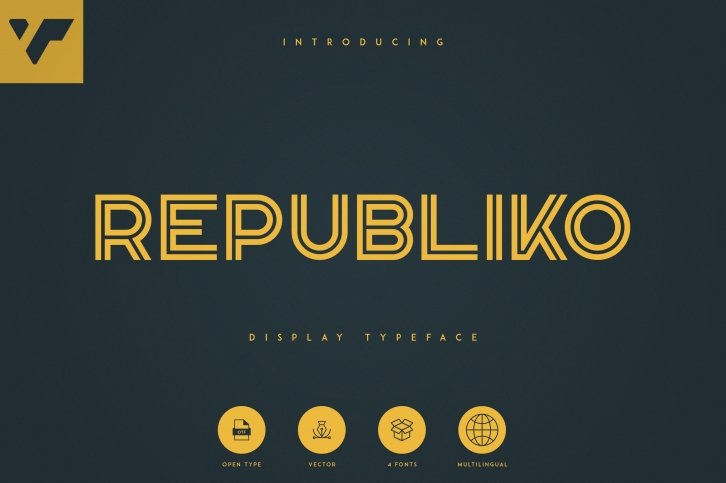
Republiko is a great font that was designed by VPcreativeshop. Imagine the amount of combinations you can create using this font! The archive is 17.42 MB and it was released on February 3, 2020. Republiko looks beautiful on wedding invitations, greeting cards, logos, posters, labels, t-shirt designs, logos, business cards and is perfect for use in ink or watercolor works, fashion, magazines, packaging and food menus, children's books and more!